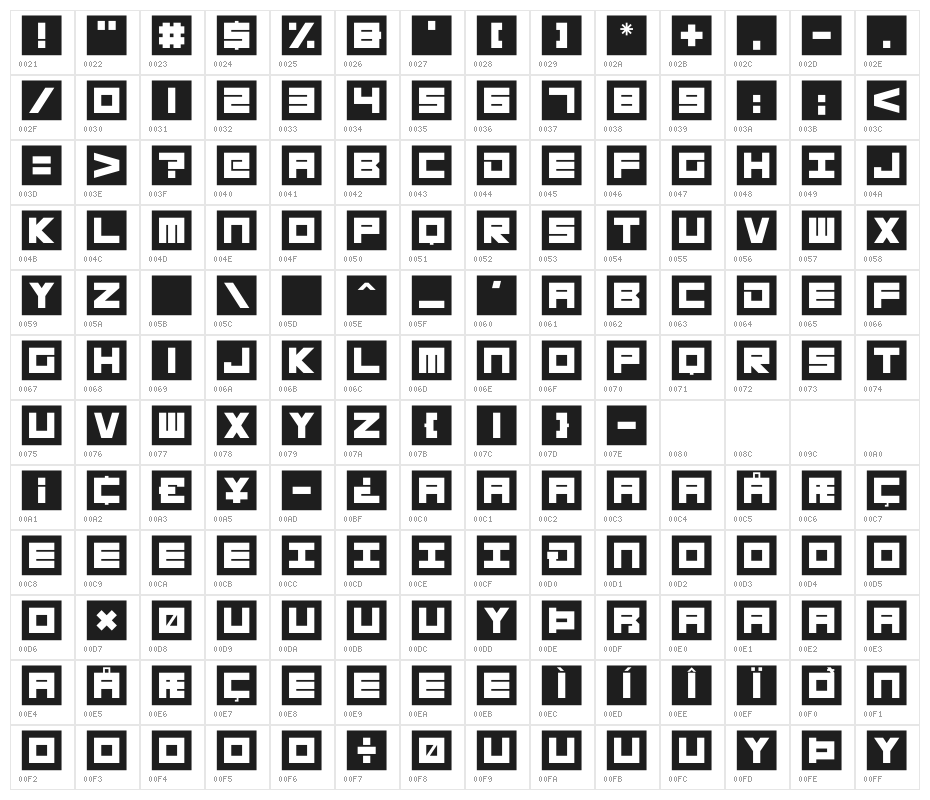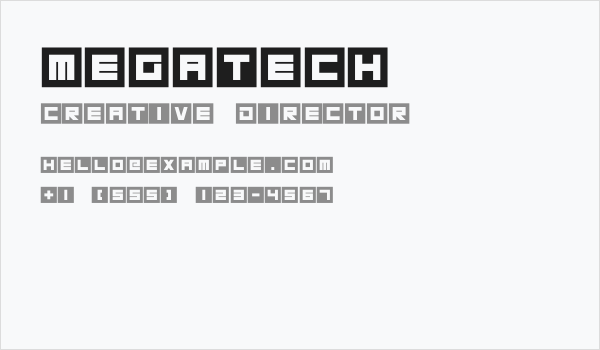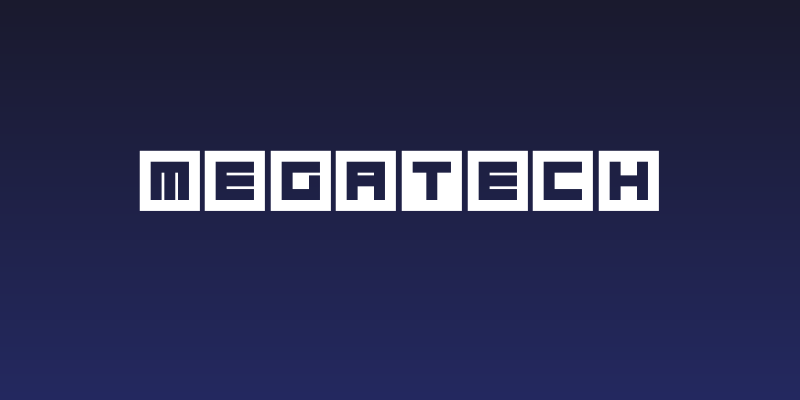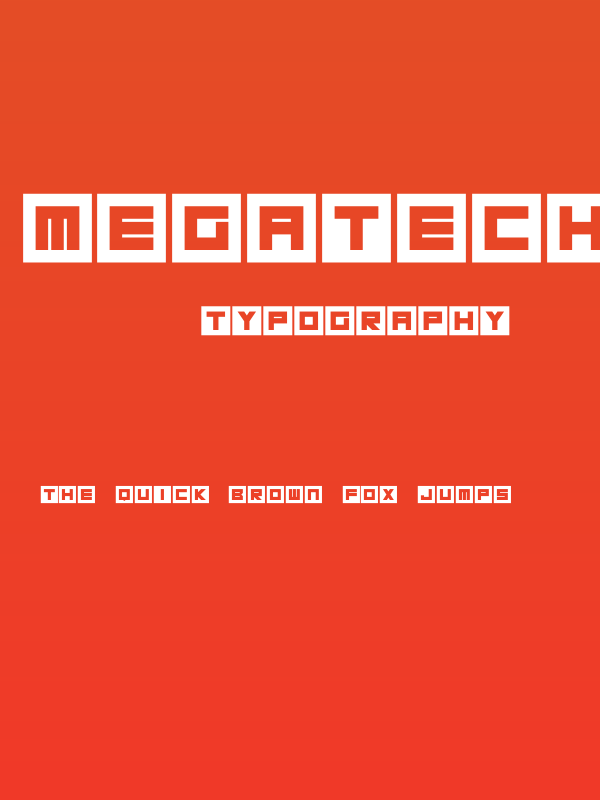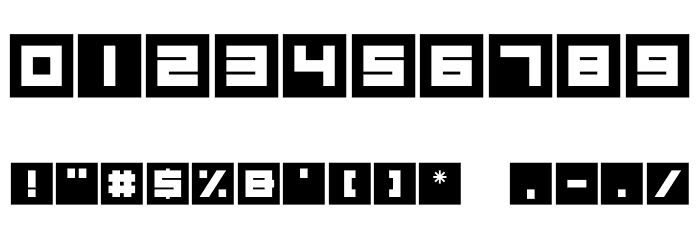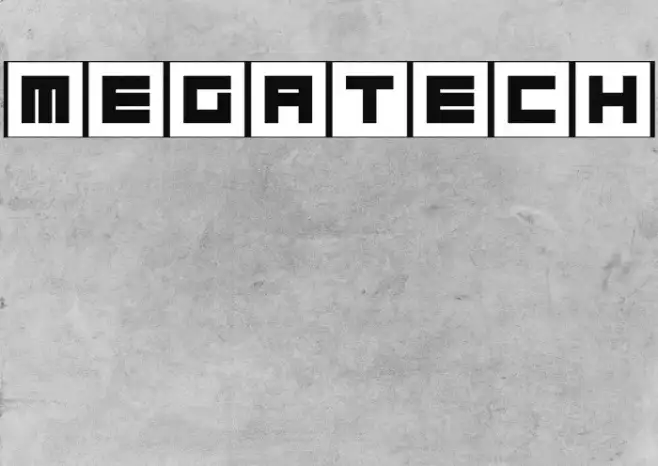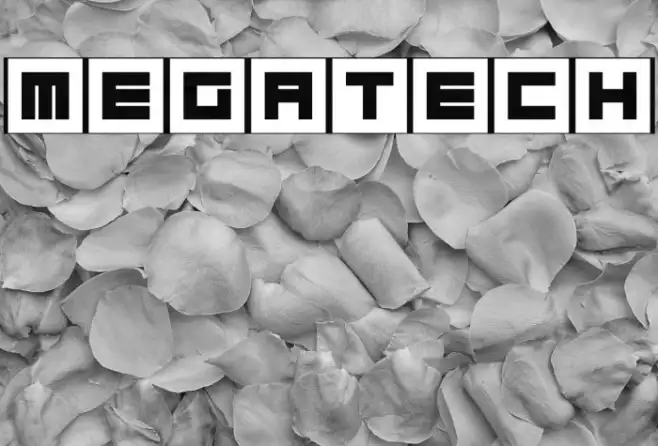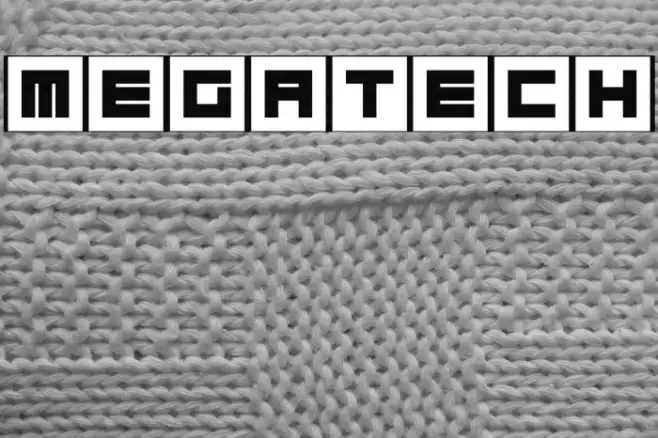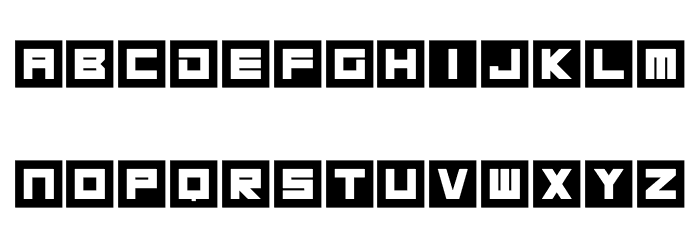
Megatech Font
Megatech Description
This font features a bold, futuristic design with a strong geometric structure. Each character is enclosed in a square, giving it a distinct, blocky appearance. The letters and numbers are crafted with sharp angles and straight lines, creating a sense of modernity and technological advancement. The uniformity of the characters within their square boundaries adds a cohesive and organized look. This style is reminiscent of digital displays or retro gaming interfaces, making it ideal for projects that require a tech-savvy or industrial aesthetic.
| Proposed Projects | Ideal for technology branding, video game interfaces, sci-fi movie posters, and digital displays. |